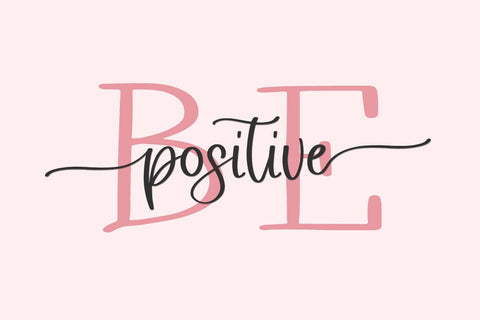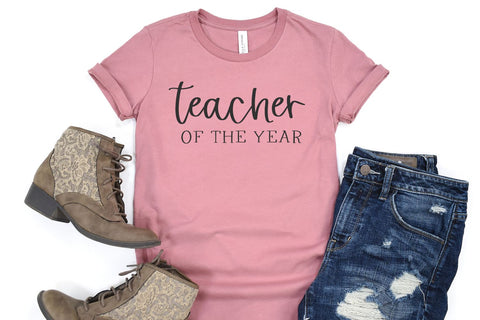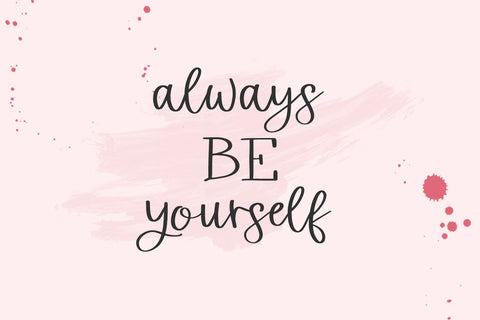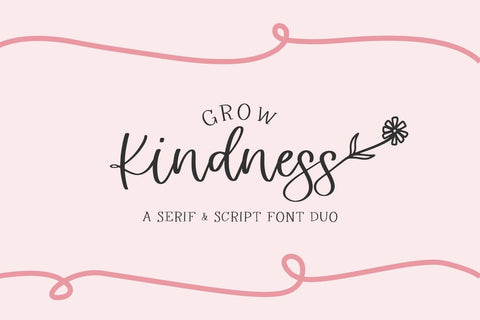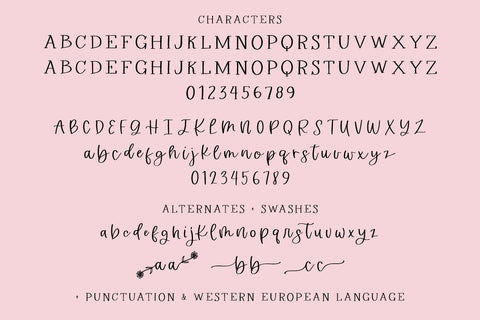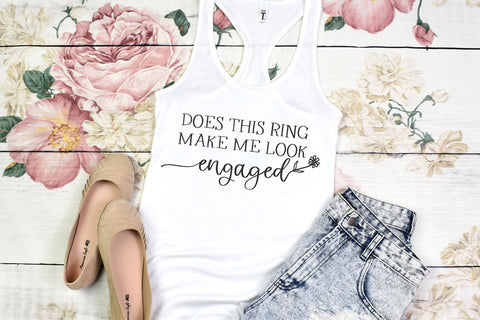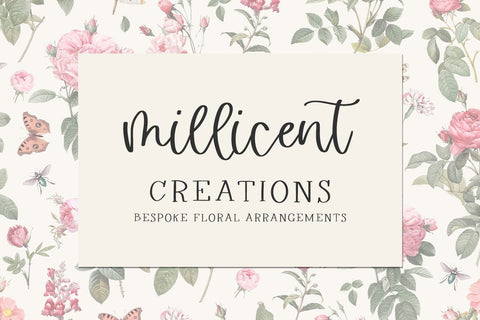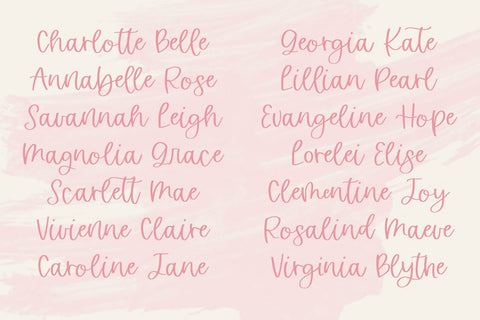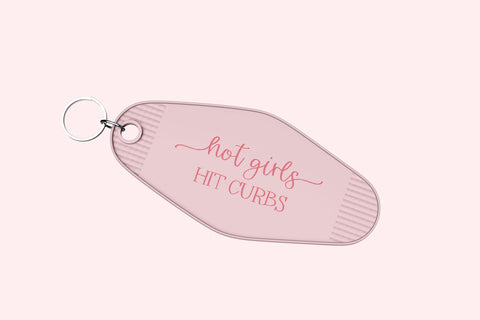
Grow Kindness Font Duo
Introducing Grow Kindness, a cute & modern font duo that features a bouncy calligraphy script with swash options, and an all-caps serif pairing. Handlettered with crafters & designers in mind, this duo is a great fit for logos, branding, paper products, SVG designs, laser cutters, Procreate, Cricut & Silhouette cutters, marketing materials, social media graphics, & more.
Grow Kindness Serif includes:
- full upper characters
- numbers + punctuation
- Western European language support - English, French, Spanish, Portuguese (Brazil), Portuguese (Portugal), Italian, German (Germany), German (Austria), Dutch, Danish, Swedish, Norwegian (Bokmål and Nynorsk), Finnish, Icelandic, Irish, Welsh
Grow Kindness Script includes:
- full upper + lowercase characters
- numbers + punctuation
- 26 alternate characters
- three sets of left & right swashes
- Western European language support - English, French, Spanish, Portuguese (Brazil), Portuguese (Portugal), Italian, German (Germany), German (Austria), Dutch, Danish, Swedish, Norwegian (Bokmål and Nynorsk), Finnish, Icelandic, Irish, Welsh